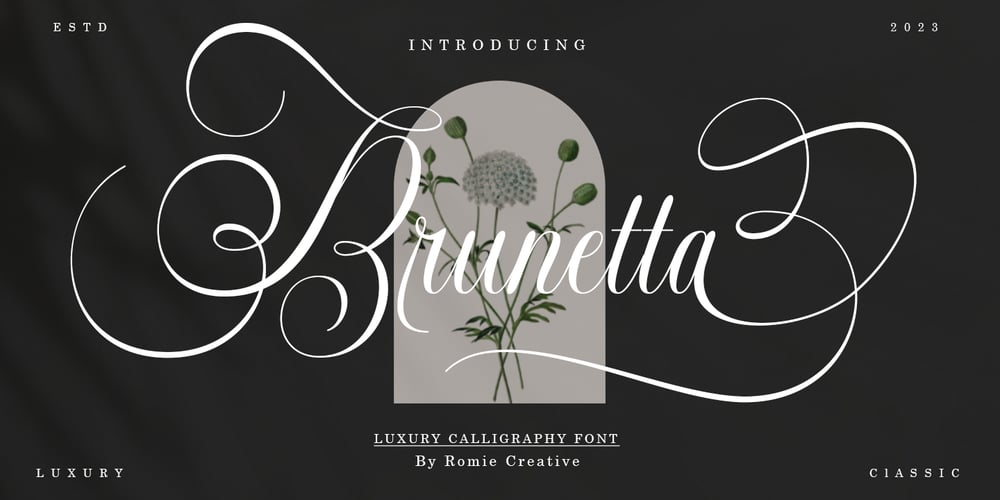
Brunetta Calligraphy Font Family was designed by Romi Rahmadi and published by Romie Creative. Brunetta Calligraphy contains 1 styles and family package options. Brulletta is a Luxury calligraphy font, Brulletta is handcrafted with copper plate stylus and features opentype with pua encode, Brulletta is a Luxury Calligraphy includes alternatives, style sets, ligatures, and swashes, Each glyph lowercase has a stylized styling, Swiss is perfect for branding, invitations wedding and cards or quotes.